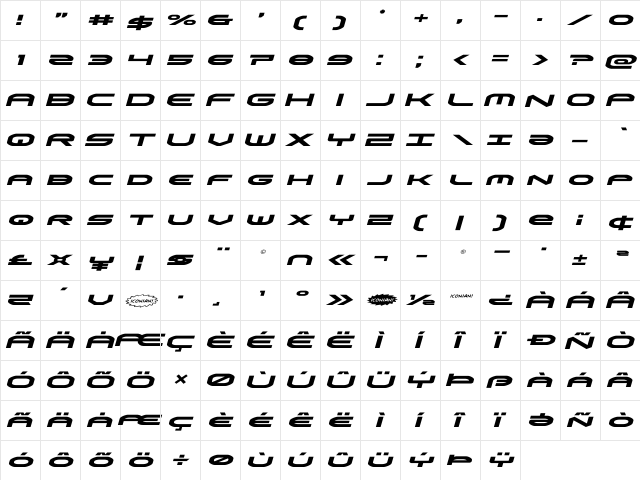
Omni Boy Expanded Italic Expanded Italic
Design Context for Omni Boy Expanded Italic Typeface
Omni Boy Expanded Italic offers clean, dependable letterforms without strong stylistic allegiance, making it a practical choice for designers who need flexibility. The slanted form adds forward momentum and visual energy.
Pro Tip: Use Omni Boy Expanded Italic for emphasis, pull quotes, and subheadings where its slanted energy can add rhythm to the layout.